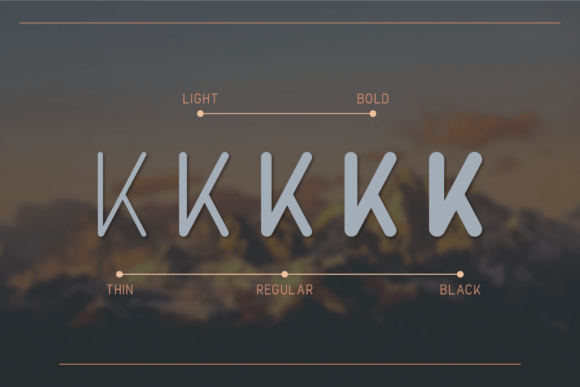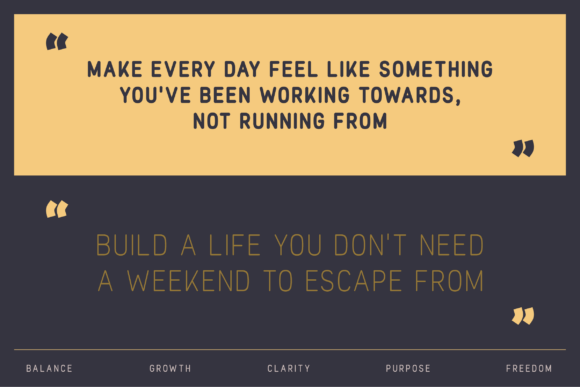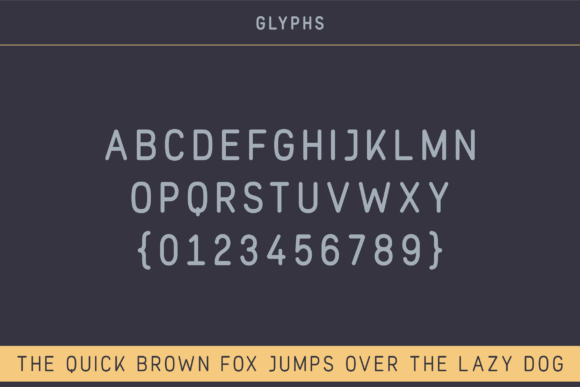
Introduction to Femenino Rounded Font
Have you ever been stuck on a design project, searching for the perfect font to give it that extra oomph? You know, that moment when everything falls into place and your creative vision starts to take shape? For designers, crafters, and brand creators, finding the right font can be the difference between a design that shines and one that falls flat.
Enter Femenino Rounded Font, a modern all-caps sans serif font family designed to bring clarity, warmth, and bold personality to your creative projects. With its soft-rounded edges and sleek, geometric construction, this high-quality font is both highly legible and aesthetically balanced across five versatile weights.
Key Features of Femenino Rounded Font
- Unique, rounded design that adds a touch of femininity to creative projects
- Includes a range of characters and symbols, making it suitable for a variety of creative projects
Honest Review: Femenino Rounded Font
I recently had the chance to work with the Femenino Rounded Font, and I must say it’s been a great addition to my design resource collection. This free download has exceeded my expectations in terms of quality and versatility.
Here are some things that work well with the Femenino Rounded Font:
- ✨ Unique rounded design that adds a touch of femininity to any creative project
- ✨ High quality glyphs that are crisp and clear even when scaled up
- ✨ Supports both Latin and Cyrillic scripts, making it a great option for international projects
- ✨ Comes with a transparent background, making it easy to overlay on images or videos
- ⚠️ The font doesn’t come with a complete character set, which may limit its use for more complex projects
- ⚠️ The rounded design may not be suitable for projects that require a more traditional or formal look
Overall, I’m impressed with the Femenino Rounded Font and would recommend it to anyone looking for a high-quality, unique font for their creative project. With a little creativity and planning, the limitations can be easily worked around, making it a valuable addition to any design resource collection.
How to Use Femenino Rounded Font
For the most out of the Femenino Rounded Font, use it for headings and titles in your design. It’s perfect for creative projects that require a touch of elegance and sophistication. Some common use cases include branding, advertising, and editorial design.